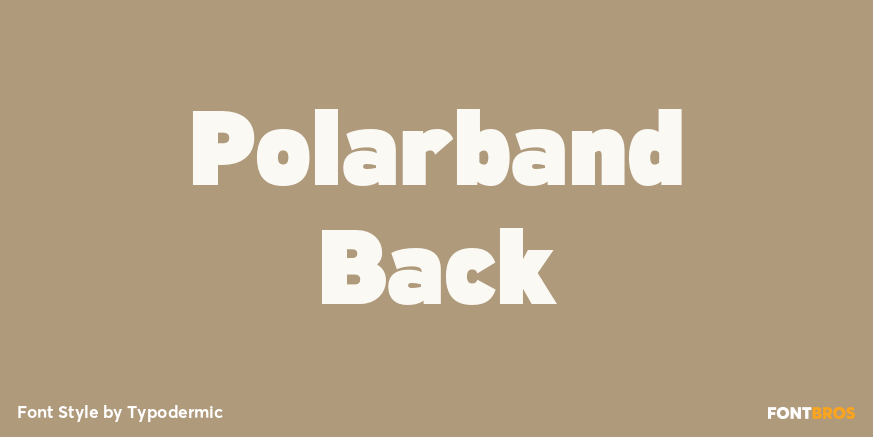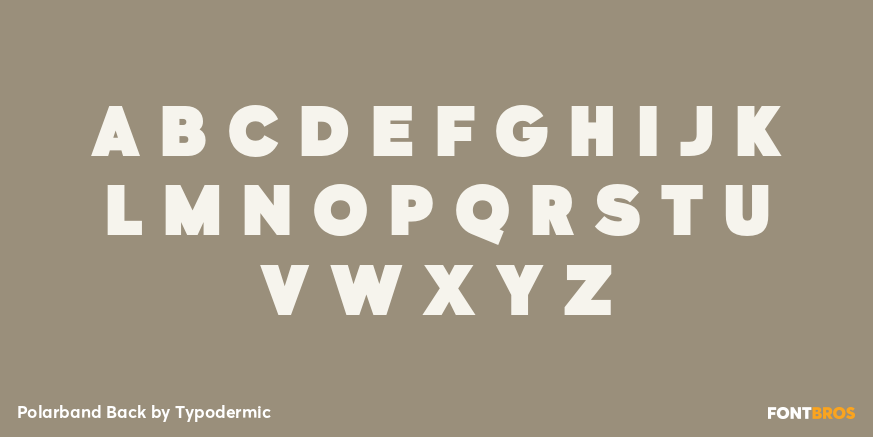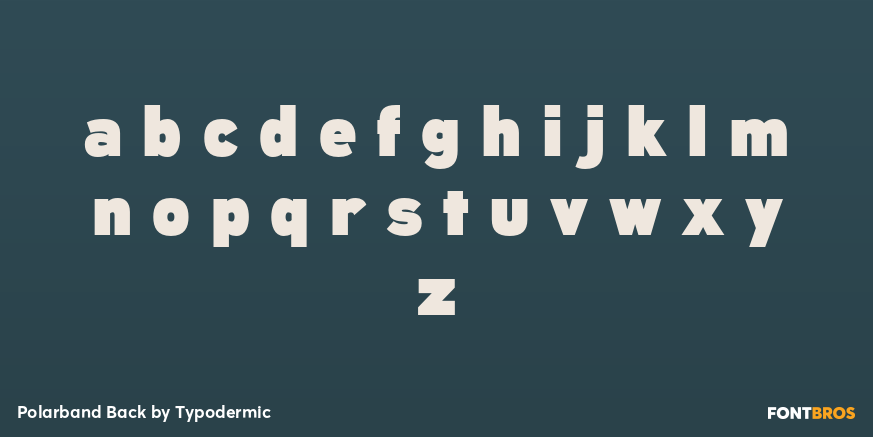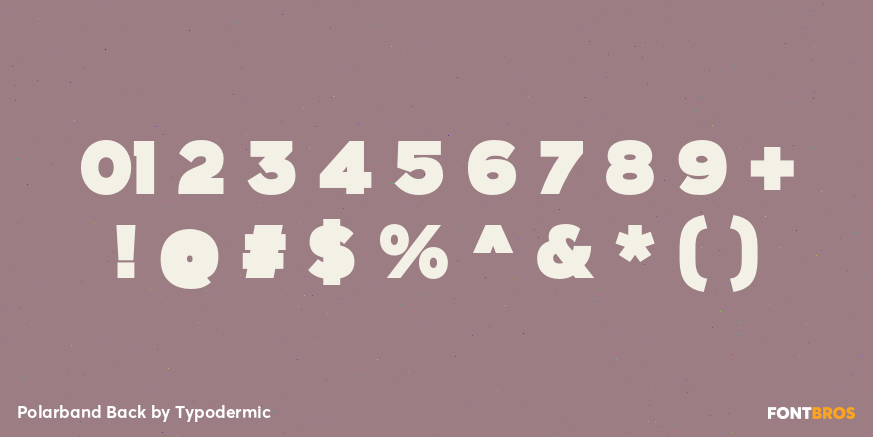
Polarband Back
Buy NowPolarband Back is the solid letter-body component of Polarband’s layered system. Its broad geometric silhouettes supply the substantial base, while Polarband Front can be aligned over them to add the fine inline treatment in a second color. Used alone, Back gives the family’s early twentieth-century display forms a bold, unlined finish.
Use Back as the foundation for flavor names, seasonal packaging, restored-cinema titles, venue graphics, and motion sequences. Recolor it independently while keeping Front consistent, or reveal the two layers separately in animation. When stacking the styles, use identical text, size, and positioning so the components remain aligned.